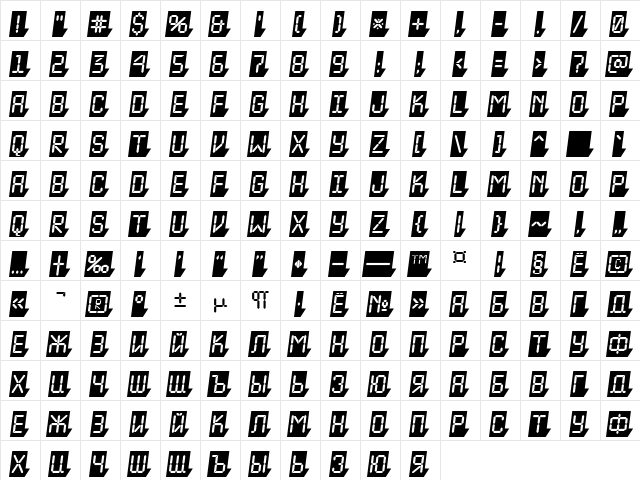
a_LCDNova3DCmObl Regular Font Preview
a_LCDNova3DCmObl Regular
Design Context for a_LCDNova3DCmObl Typeface
a_LCDNova3DCmObl is a composed and adaptable typeface that performs quietly and consistently across a wide range of design contexts.